Weddings are a wonderful occasion in life that we want to commemorate with luxury and elegance. This important day includes not only the bride and groom-to-be but also their family and friends. That’s because they gather to celebrate their devotion and love.
One important element in organizing a wedding is the invitation, which serves as the first window for guests to experience the atmosphere of the upcoming celebration. An invitation is not just a piece of information but also a work of art that reflects the theme and personality of the couple.
Moreover, using the right modern wedding font can give a touch of elegance and class to your wedding invitation. The right font not only affects the aesthetics but also adds emotional value to that invitation.
There are various types of fonts that can be used for wedding invitations, ranging from script font that mimic handwriting, serif fonts that convey a classic and formal feel, to modern and minimalist sans-serif fonts. You can also consider artistic modern wedding font displays to capture attention. Because the combination of several types of modern wedding fonts can create a harmonious and unique appearance.
Here are some modern wedding font options that will make your invitations look charming and eye-catching. By combining various styles and design elements, your wedding invitations will reflect the desired theme and atmosphere, creating an unforgettable impression for the guests in attendance. Without further ado, let’s jump into it!
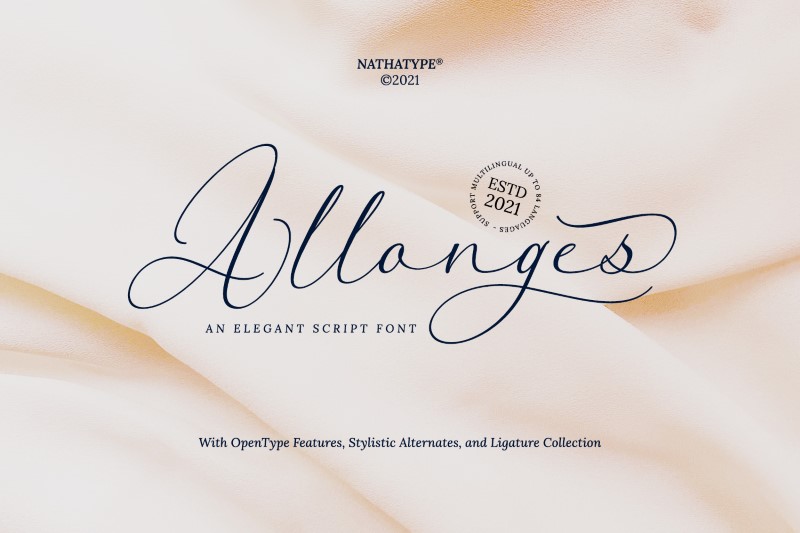
Firstly, we have Allonges on this list. This font is appropriate for meeting the design requirements of modern weddings. With its modern, natural, and smooth design, this font provides a fresh look that is ideal for wedding invites. Furthermore, Allonges is ideal for branding and packaging design.
Next, we have Barethelly Signature, an example of a charming modern wedding script font with a slight of feminine touch. This font provides a soft and elegant appearance, making it the perfect choice for writing names on wedding invitations. Furthermore, you will find a variety of interesting characters within it, including stylistic elements and ligatures.
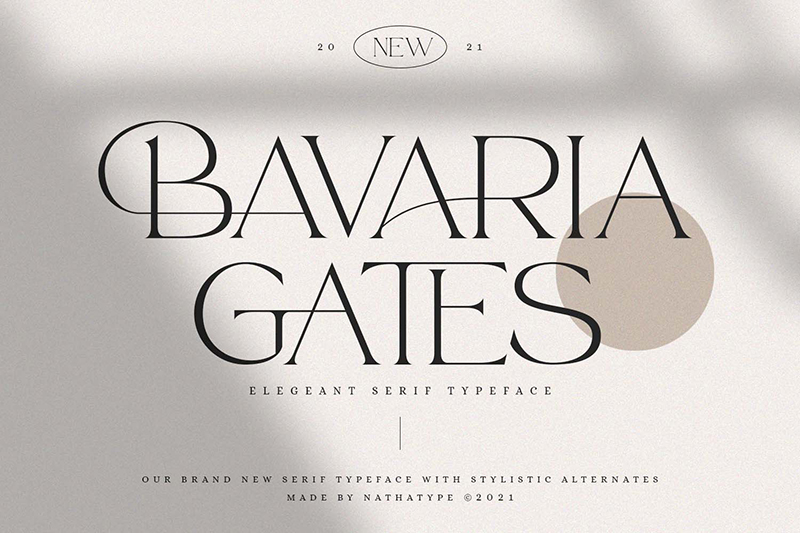
Thirdly, we present you with Bavaria Gates. It is one of the best serif fonts that conveys a modern and established impression. With easily readable capital letters, this font is also complete with ligatures and swashes that enhance the design. Hence, this option is great for wedding invitations if you’re tired of monotonous fonts.
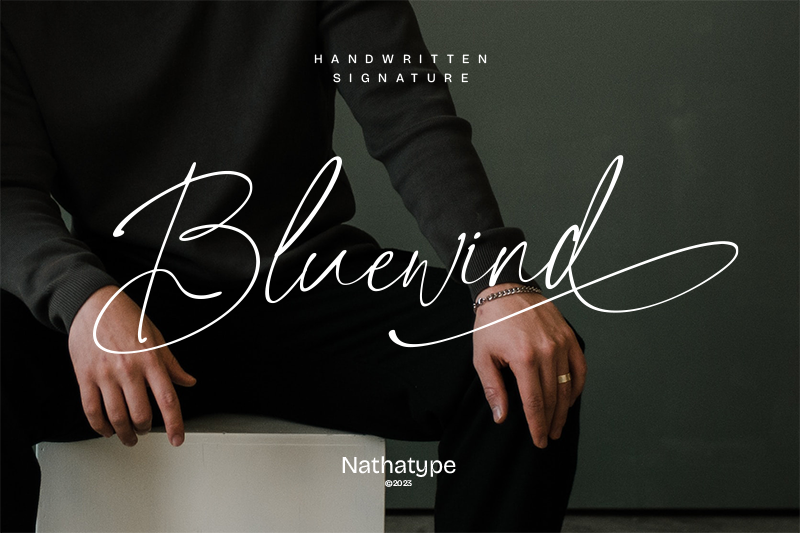
Bluewind is an elegant modern wedding script font. The design mimics the beauty of handwriting. Besides, each of the letters has a smooth and simple design, creating an alluring display. This font is suitable for wedding invitations because it looks elegant and is easily readable.
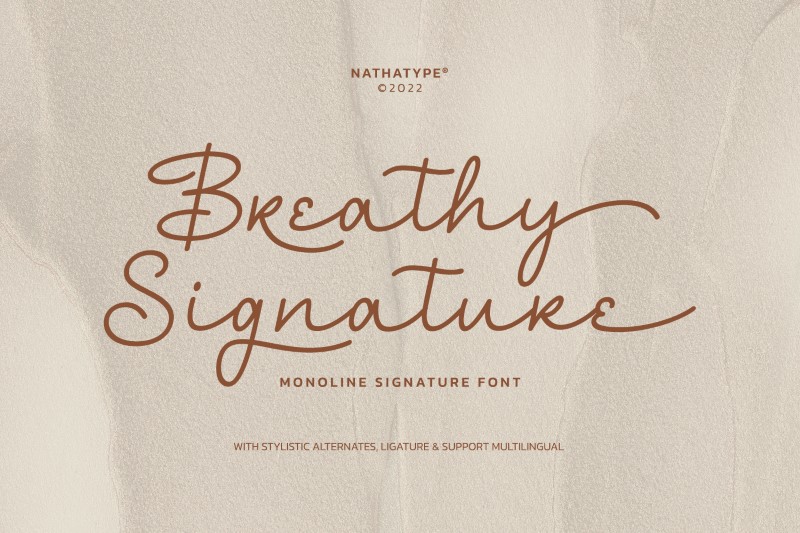
Breathy Signature fonts create a fresh and cheerful atmosphere, making it seem like walking on a meadow in the middle of spring. With its alluring look, this font is suitable for many professional design projects, including wedding invitations. Additionally, the font has high readability and is therefore easy to use.
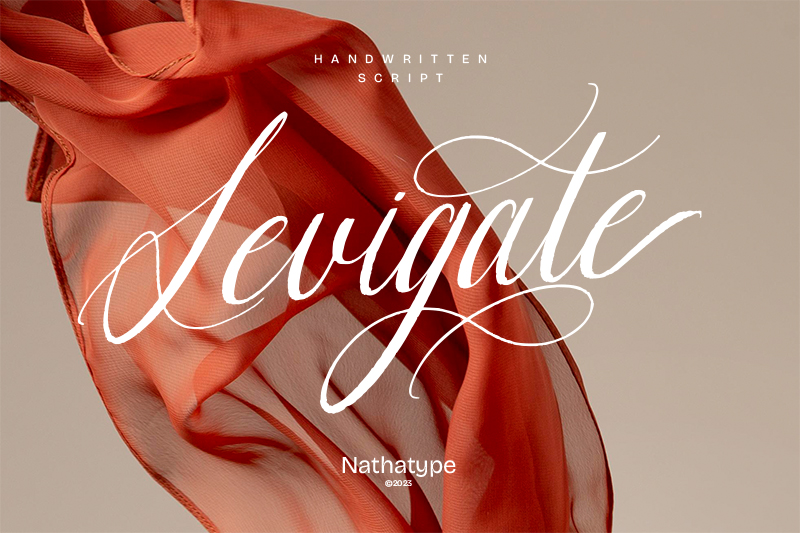
Levigate is an elegant modern wedding script font. It is ideal for projects with a classy appearance. This font is suitable for logos, invitations, and greeting cards. Levigate offers high-contrast letters that catch the eye. As a result, this font will add a luxurious and timeless touch to your wedding invitation design.
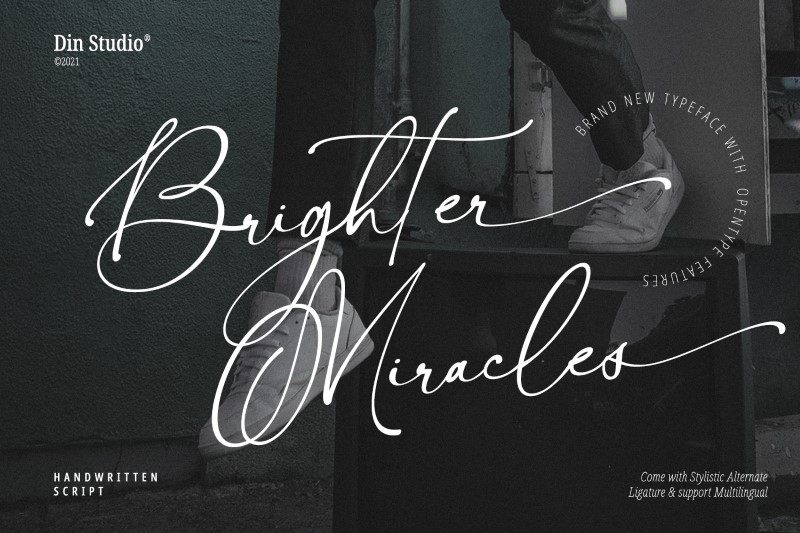
Brighter Miracles is an authentic handwritten font suitable for various professional projects. With fine lines that connect, this font makes it easy for readers to understand the content of the invitation. Use this font to leave an impression on your guests. You can also use it on souvenir cards, thank-you cards, or table numbers for guests.
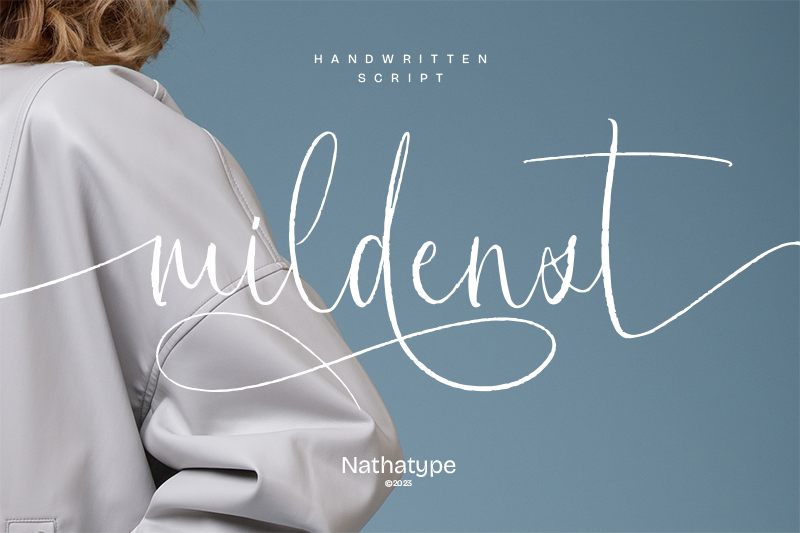
Mildenst reflects the beauty of flowing and beautiful handwritten cursive. With its thin and thick variations in the lines, this font offers a beautiful natural appearance. The details of the swinging letters and balanced spacing maintain readability, making it a good choice for your wedding invitation.
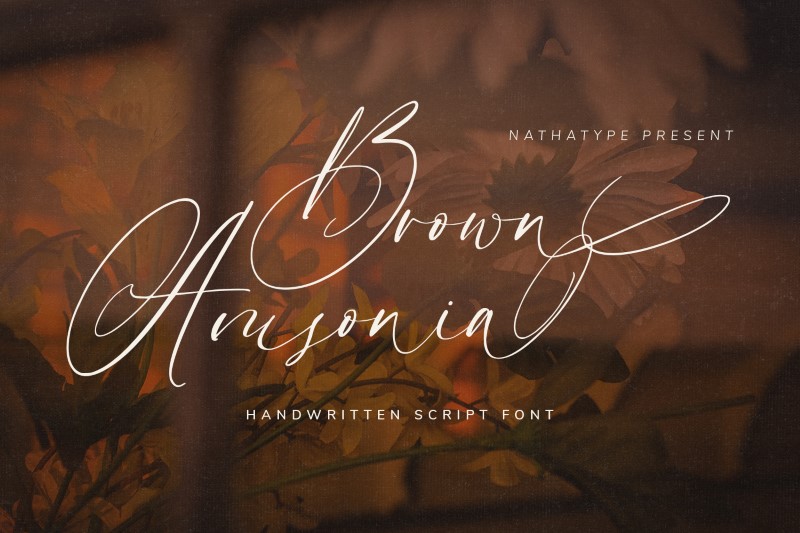
Brown Amsonia is a script font with a distinctive handwriting style. It has a high contrast and fine detail on the edges, making it appear up-to-date and professional. Therefore, this option is appropriate for individuals who want their wedding invitation to look spectacular.
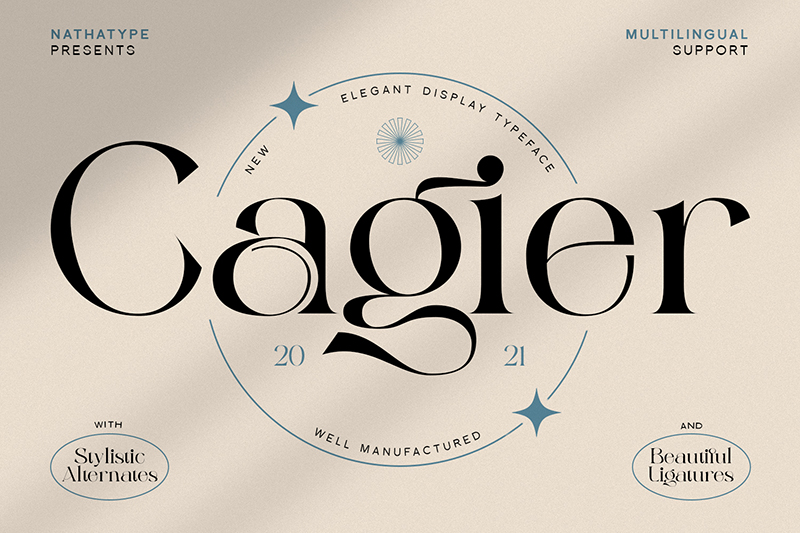
Cagier is a stylish display serif font that is suitable for wedding invitation cards that look formal. With its beautiful ligatures and many alternates, this font adds additional values in your design..
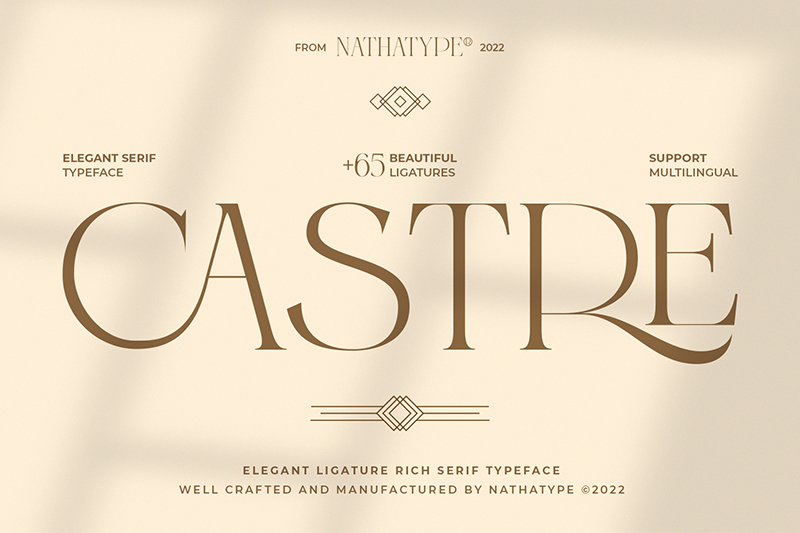
Lastly, we have Rallocate, a handwritten signature font with an interesting contrast. Each letter looks neat and elegant, suitable for use in headers or small text on wedding invitations.
In conclusion, with this variety of modern wedding fonts, you can easily find the one that best suits creating a unique and memorable invitation. Happy planning your wedding invitation!